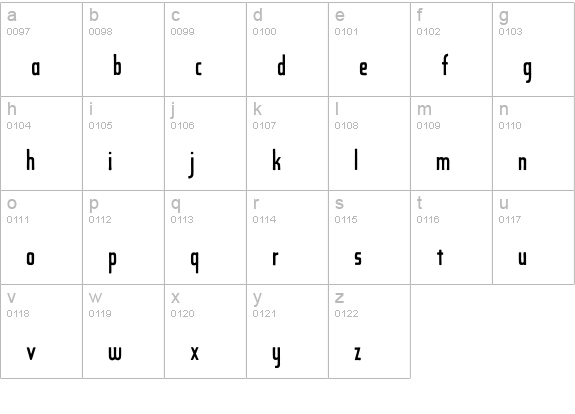
PolytoneReliant Font Details
PolytoneReliant font is a versatile and modern typeface that combines elegance with a touch of sophistication. Its clean lines and rounded edges give it a friendly and approachable look, making it suitable for a wide range of design projects. Whether you're working on a logo, website, poster, or any other creative endeavor, PolytoneReliant is sure to make your text stand out. The font features a unique blend of geometric shapes and soft curves, creating a harmonious balance that is pleasing to the eye. Its readability and legibility make it a great choice for both headlines and body text. With a wide range of weights and styles available, you can easily customize the font to suit your needs. What's even better is that PolytoneReliant font is completely free to download at FontsMarket.com. So you can enhance your designs with this stylish and modern typeface without breaking the bank. Don't miss out on the opportunity to add PolytoneReliant to your font collection today!